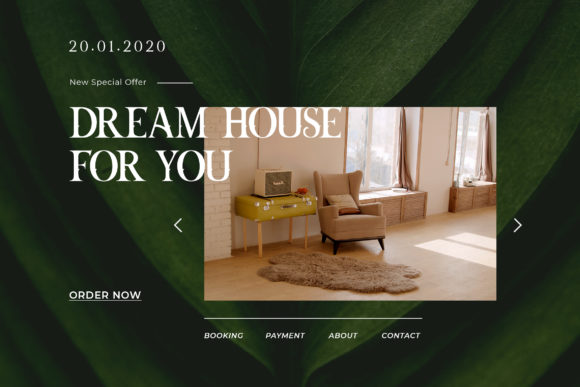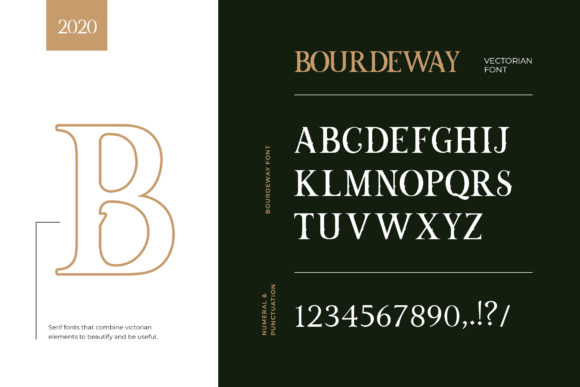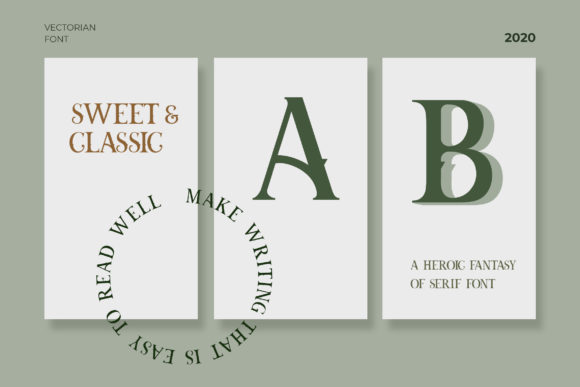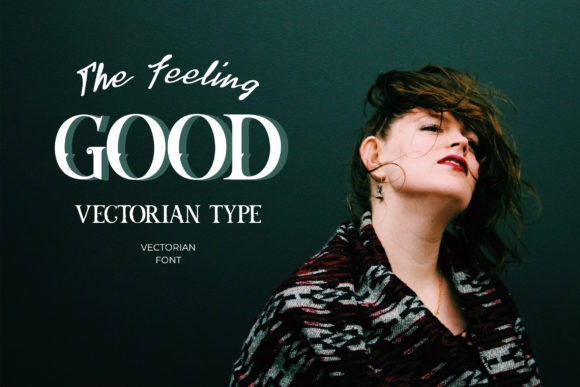
Bourdeway
Bourdeway: A Classic and Versatile Slab Serif Font
Bourdeway is a distinctive slab serif font that combines classic design with versatility. This typeface offers designers and crafters a powerful tool for creating personalized typography across various projects.
Key Features of Bourdeway
• Classic Design: Features timeless elements that evoke traditional typography
• Slab Serif Structure: Incorporates the characteristic thick, rectangular serifs typical of slab serif fonts
• Versatile Application: Suitable for a wide range of crafting projects
• Personalized Look: Designed to add a unique touch to any creation
• PUA Encoded: Allows easy access to all glyphs and swashes
PUA Encoding Advantage
Bourdeway’s PUA (Private Use Area) encoding is a significant feature that enhances its usability. This encoding allows designers and crafters to easily access all glyphs and swashes included in the font, providing greater creative flexibility and efficiency in design work[3].
Ideal Uses for Bourdeway
Bourdeway’s classic characteristics make it particularly well-suited for:
• Personalized craft projects
• DIY invitations and stationery
• Custom home decor items
• Handmade gift tags and labels
• Scrapbooking and memory keeping
When incorporating Bourdeway into your designs, consider the following tips:
• Utilize the PUA encoded glyphs and swashes to add unique flair to your typography
• Experiment with different sizes to create hierarchy while maintaining readability
• Consider pairing with script fonts for a balanced, classic look
• Use for both headlines and body text to showcase its versatility
Bourdeway is an excellent choice for crafters and designers looking to add a classic slab serif to their typographic toolkit. Its timeless design and PUA encoding make it stand out in the world of crafting fonts. Whether you’re working on personalized invitations, creating custom home decor, or developing unique gift tags, Bourdeway offers the perfect blend of classic style and versatility.
Use Bourdeway for any crafting project that requires a personalized look and explore its full potential with easy access to all glyphs and swashes. This font provides the tools to create impactful and memorable typography that adds a unique touch to your handmade creations.